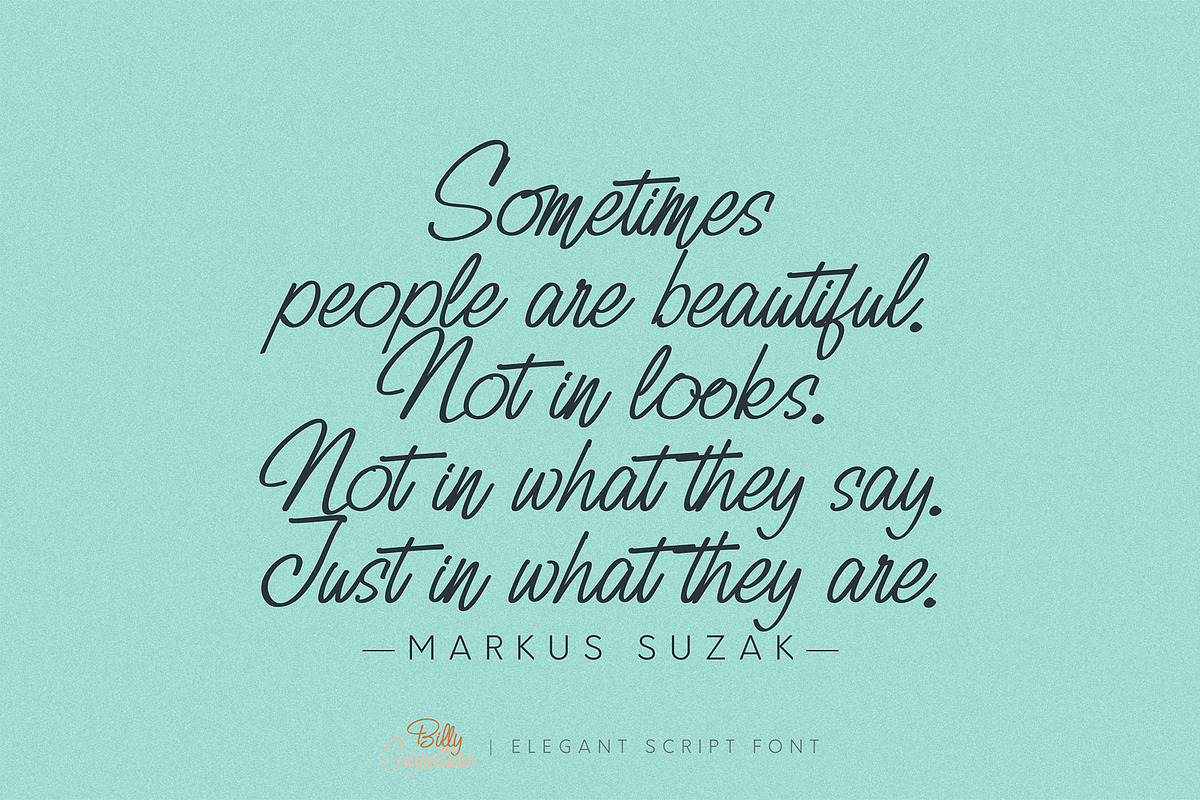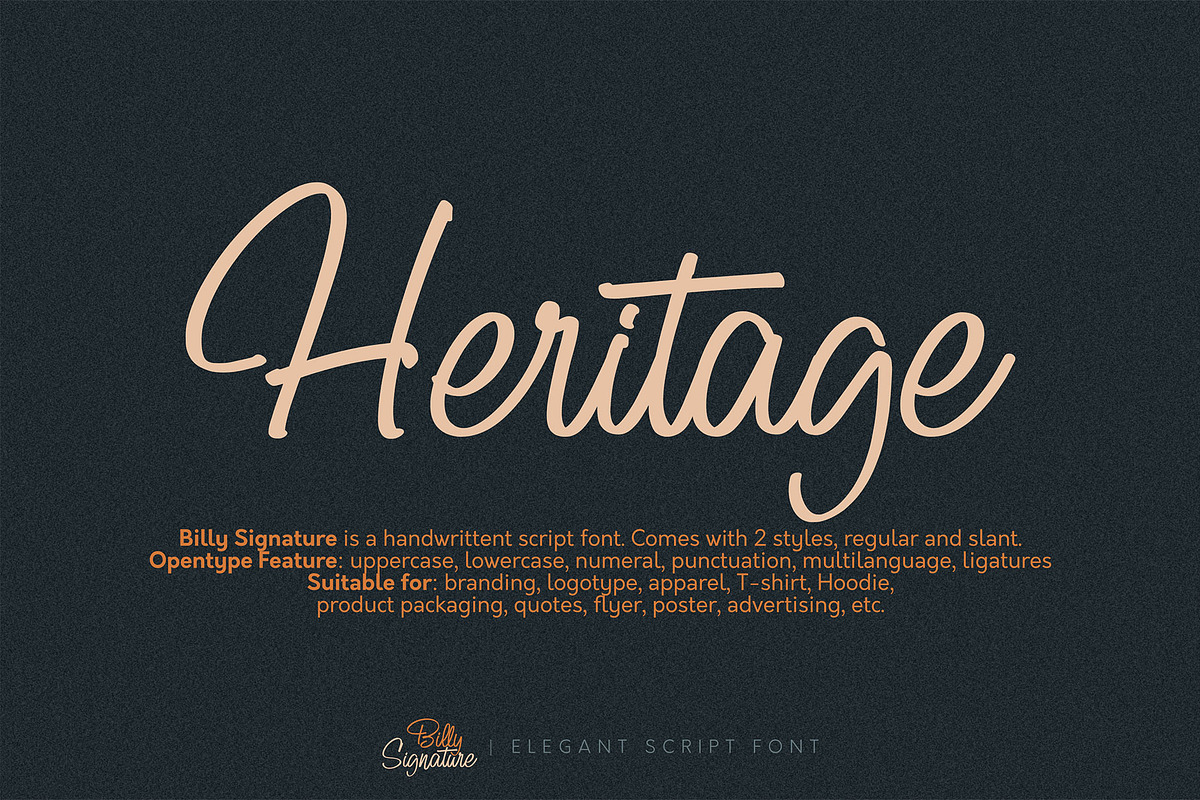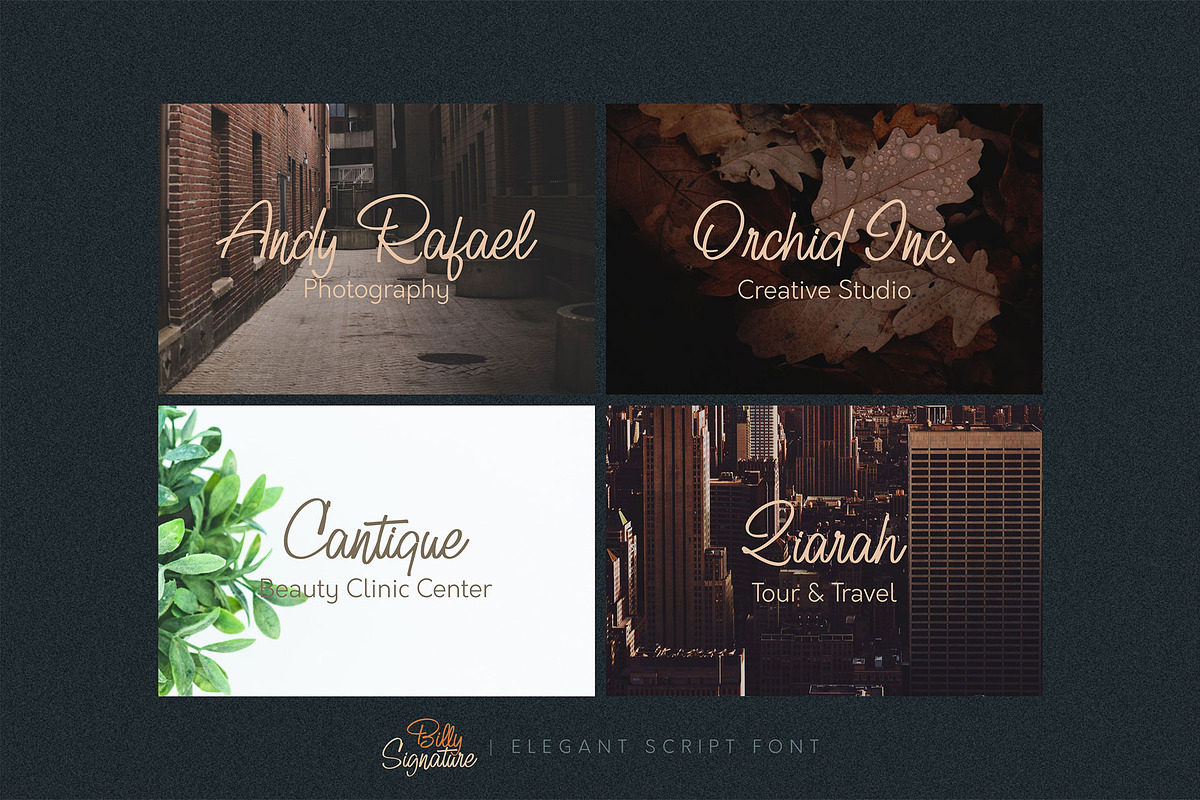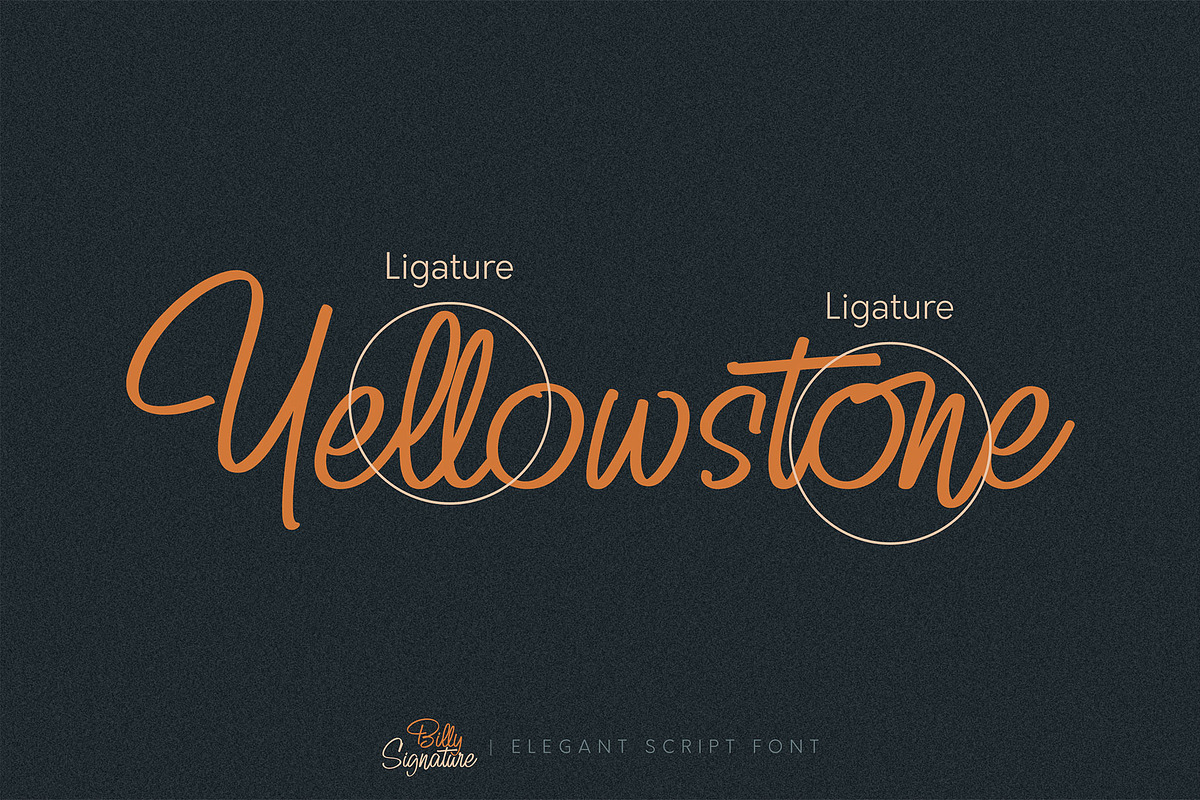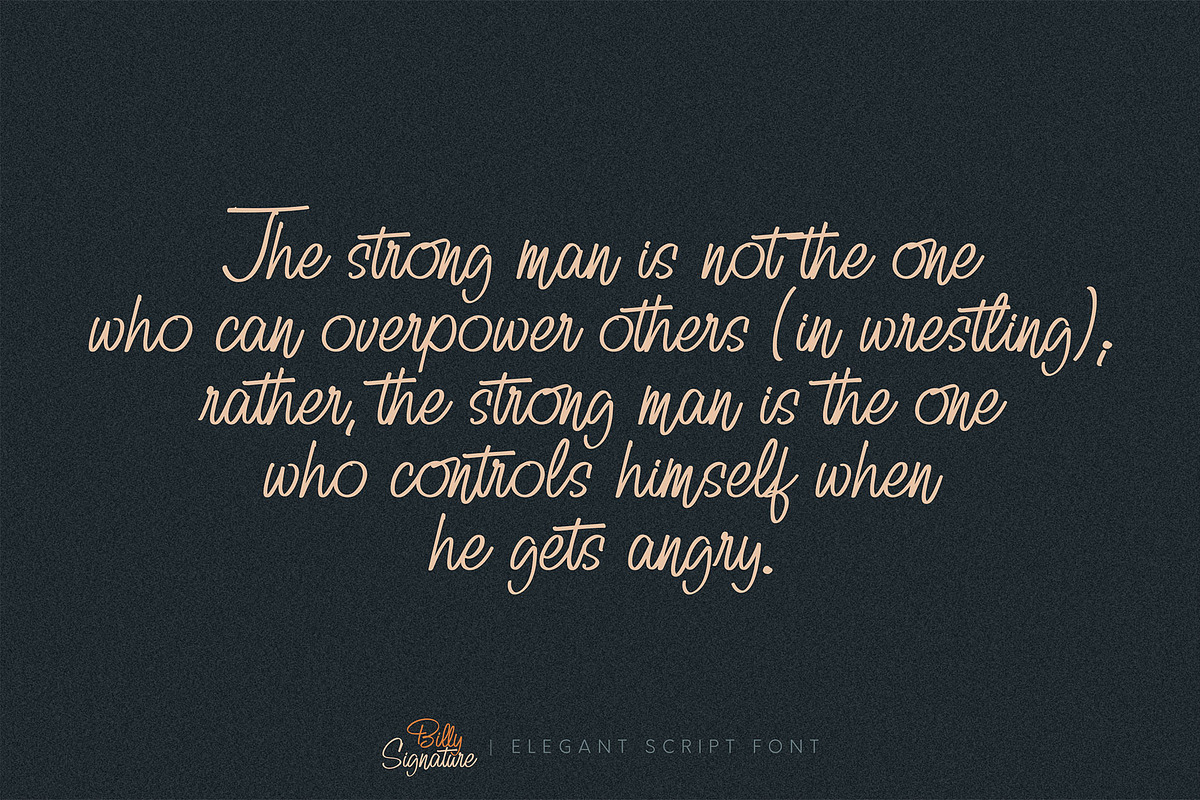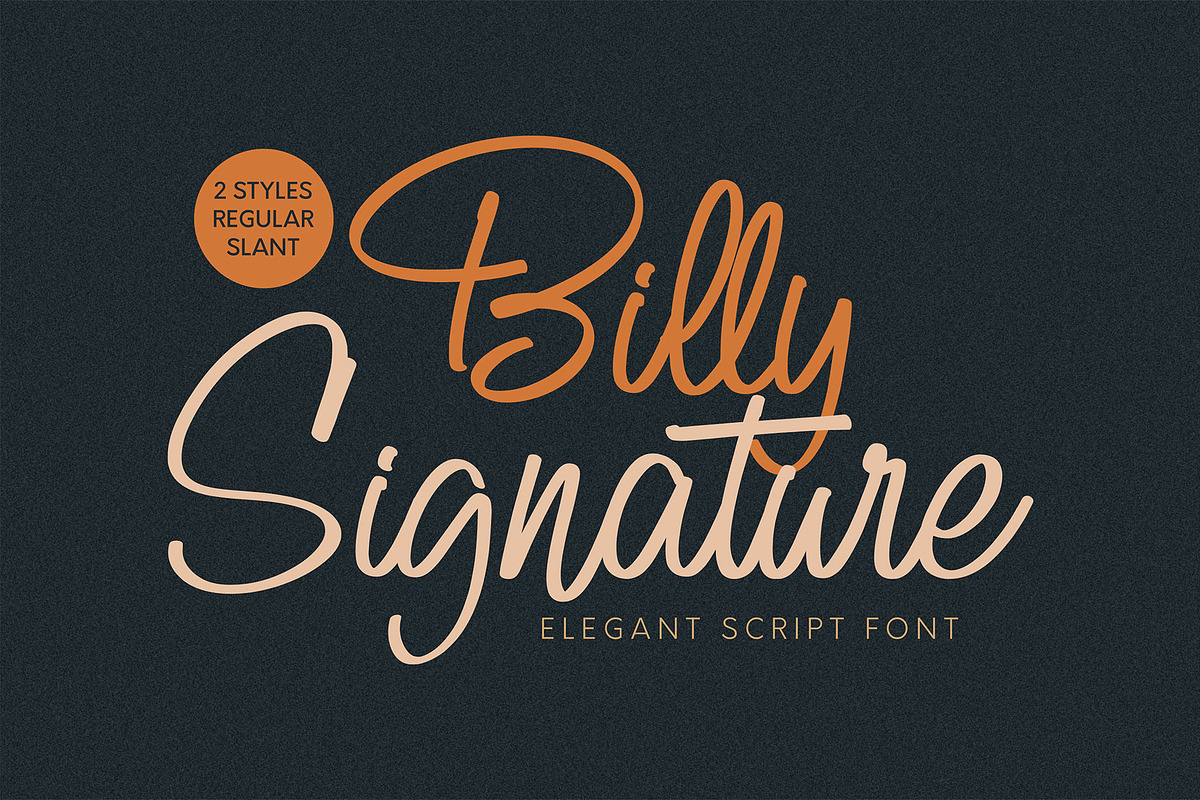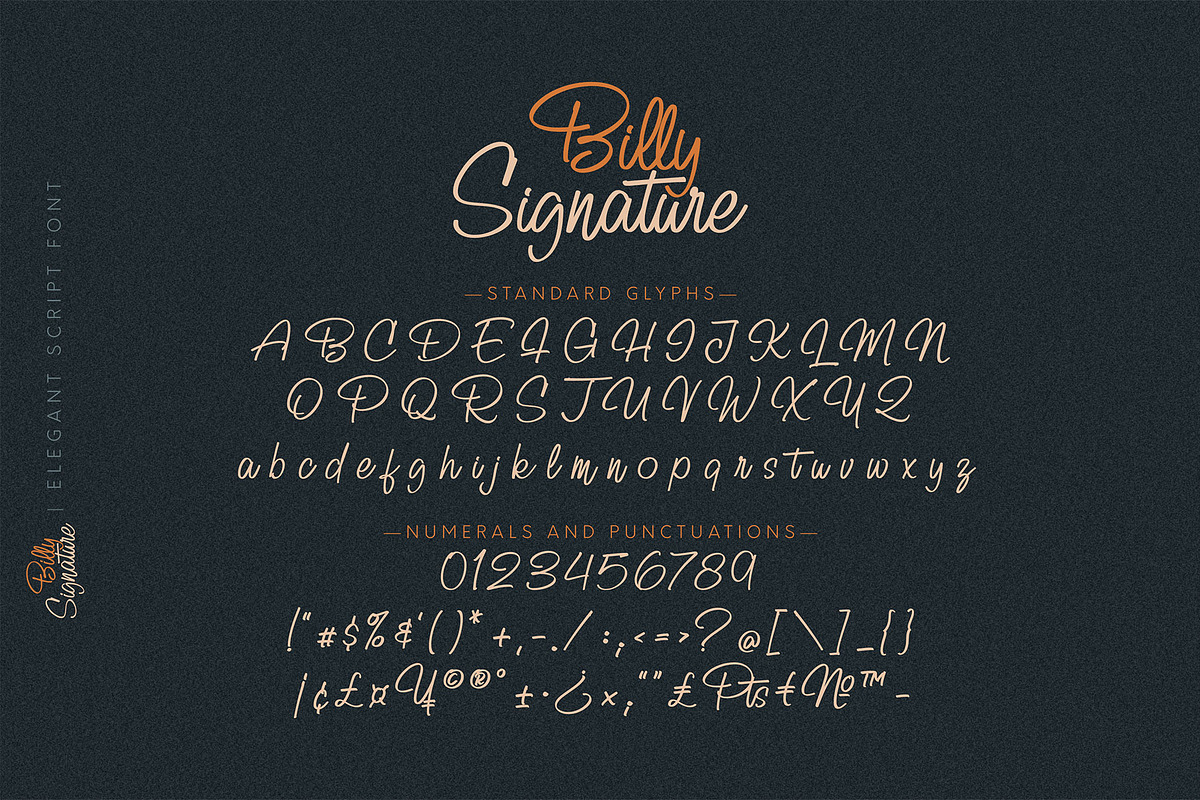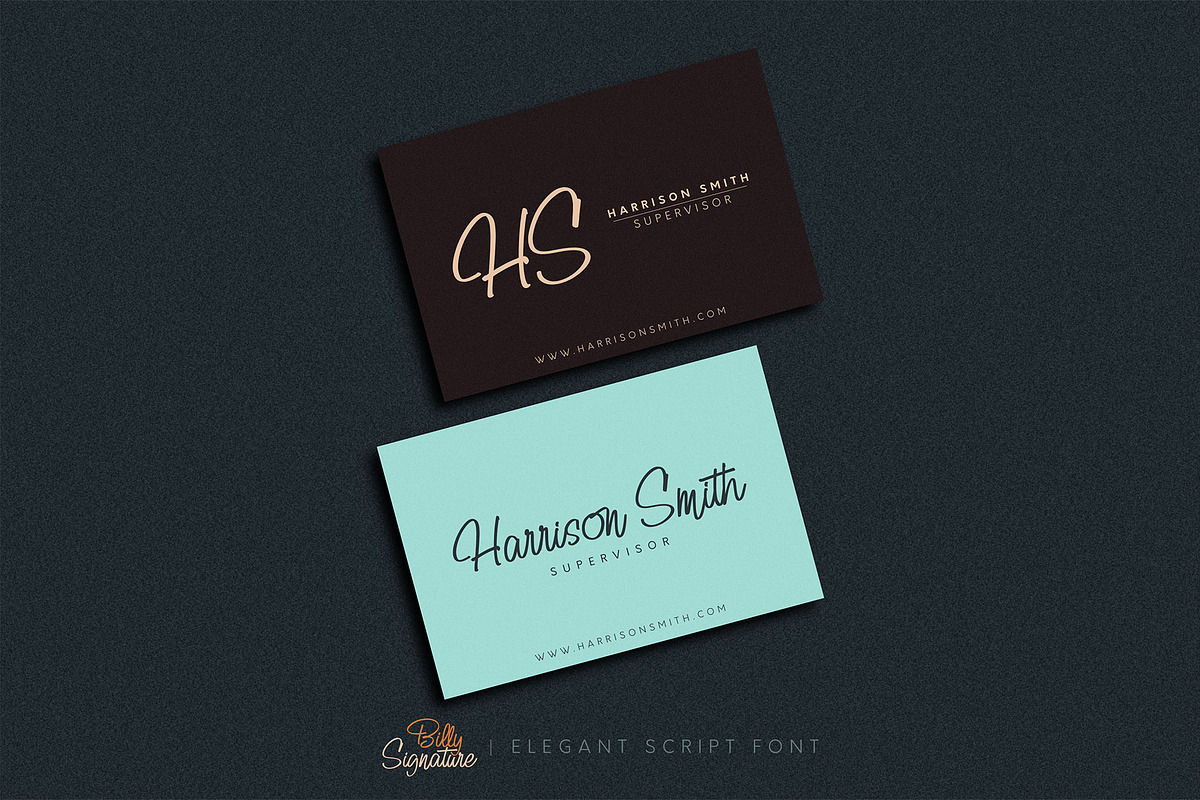
Billy Signature
Billy Signature! A handwrittent script font with 2 styles, regular and slant. Billy Signature font is suitable for branding, logotype, apparel, T-shirt, Hoodie, product packaging, quotes, flyer, poster, advertising, etc.
- Supports international languages
- Opentype feature: ligatures, alternate